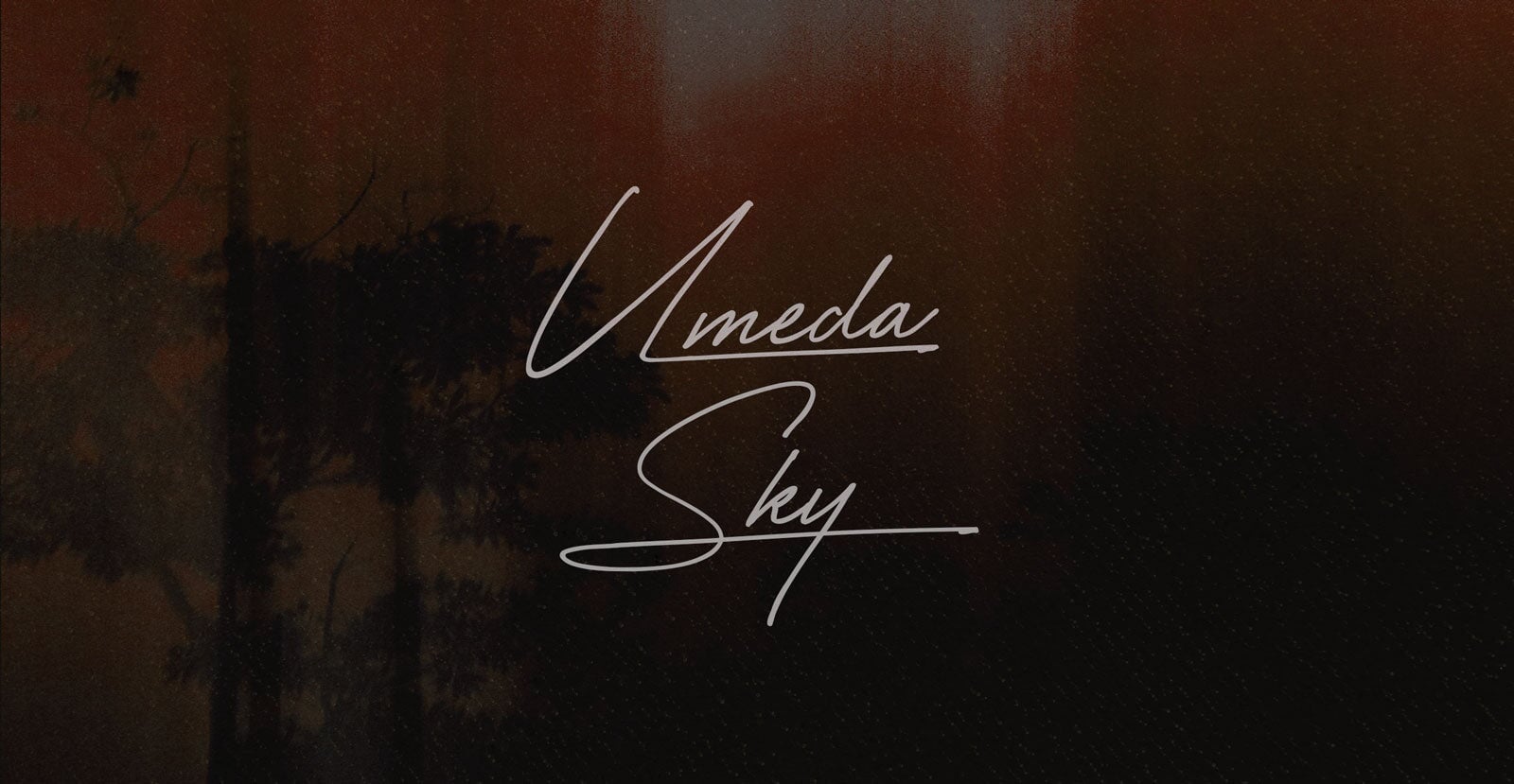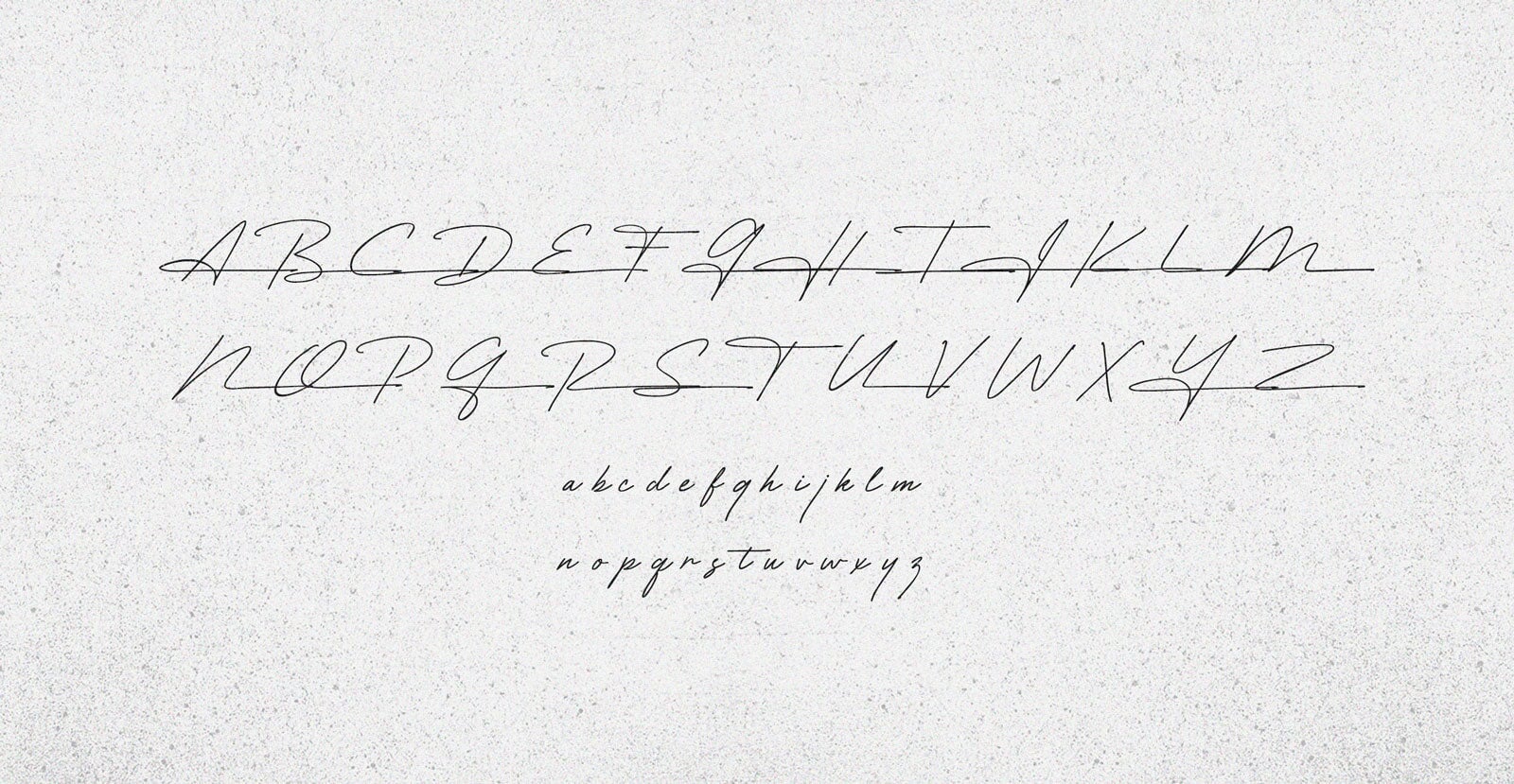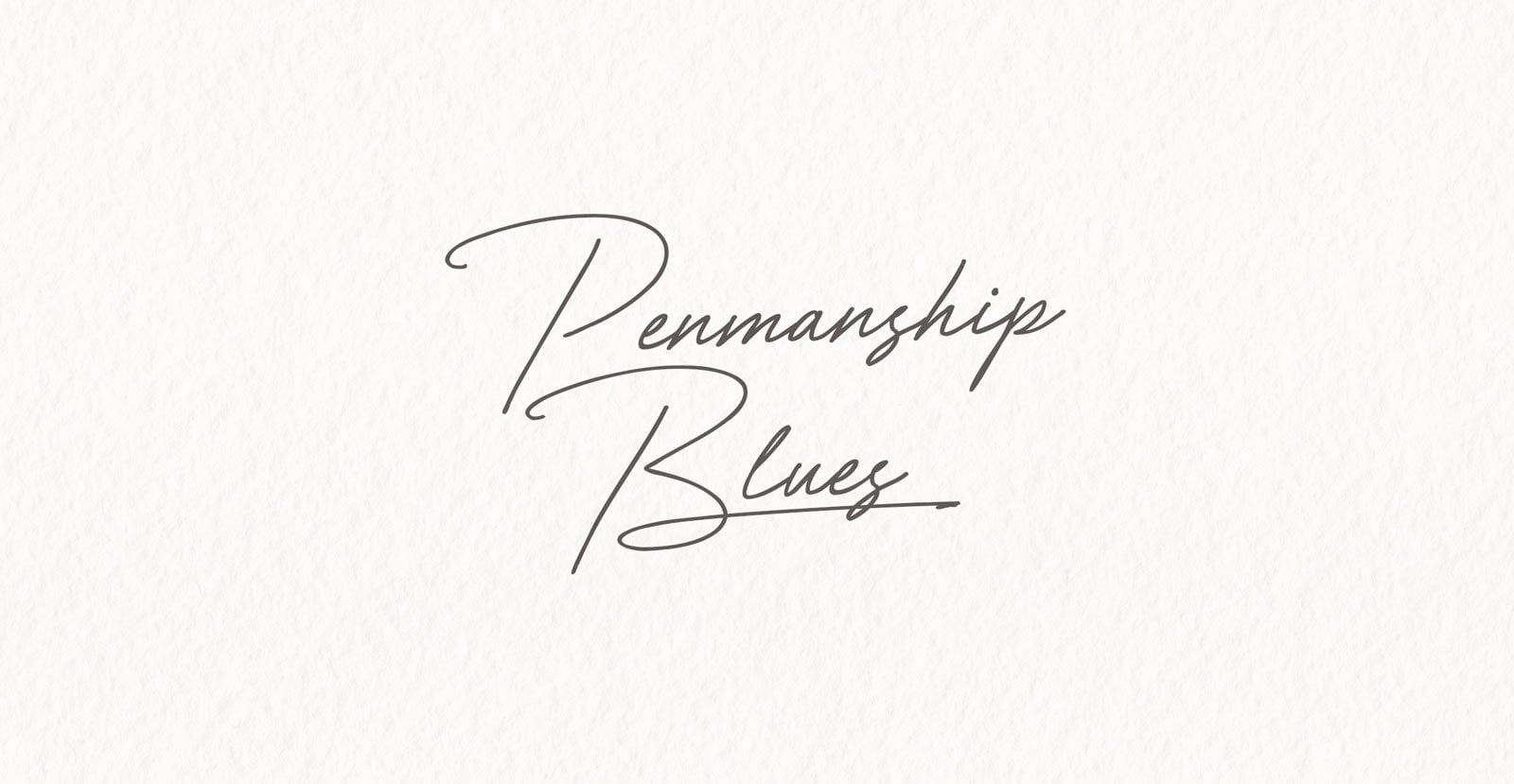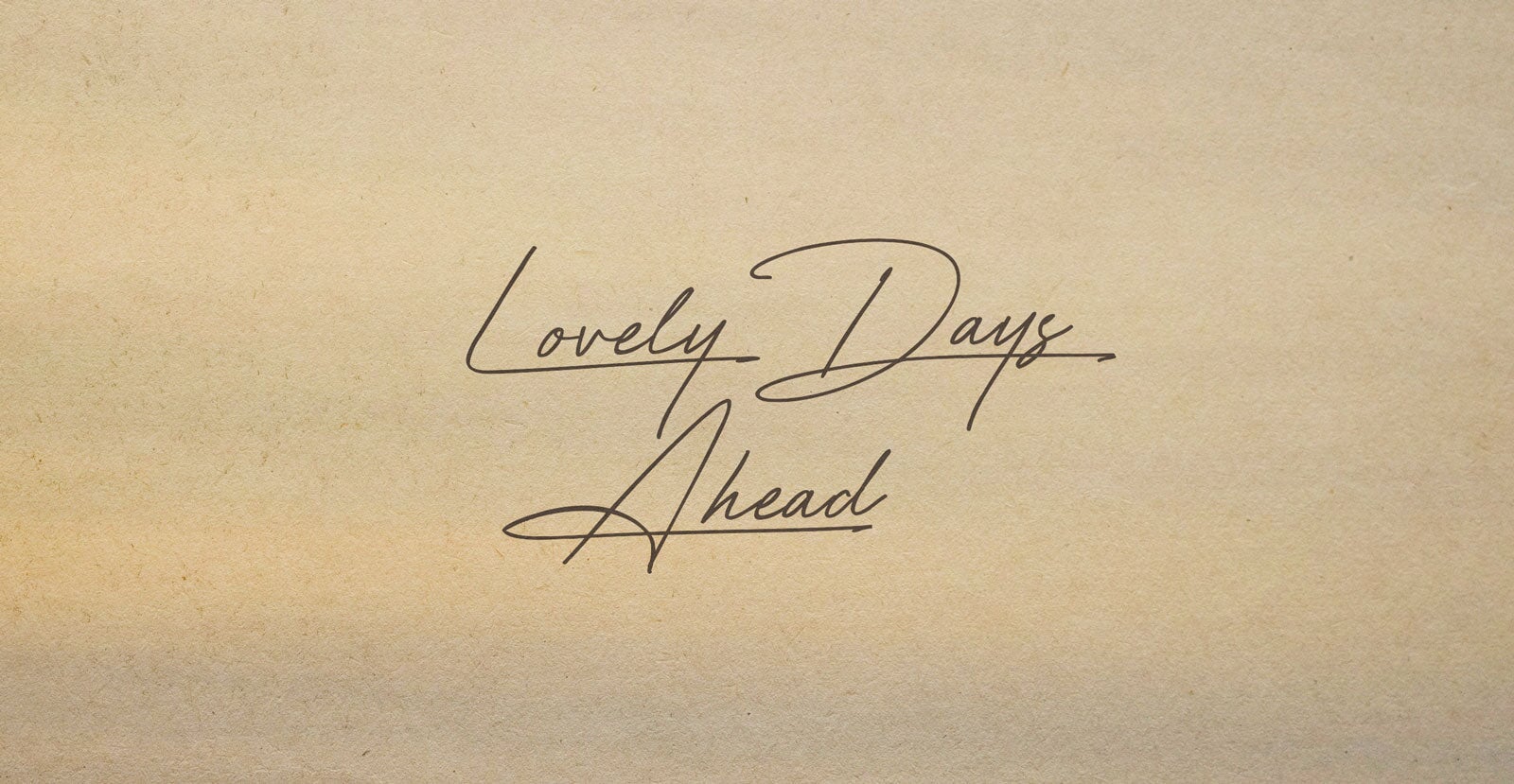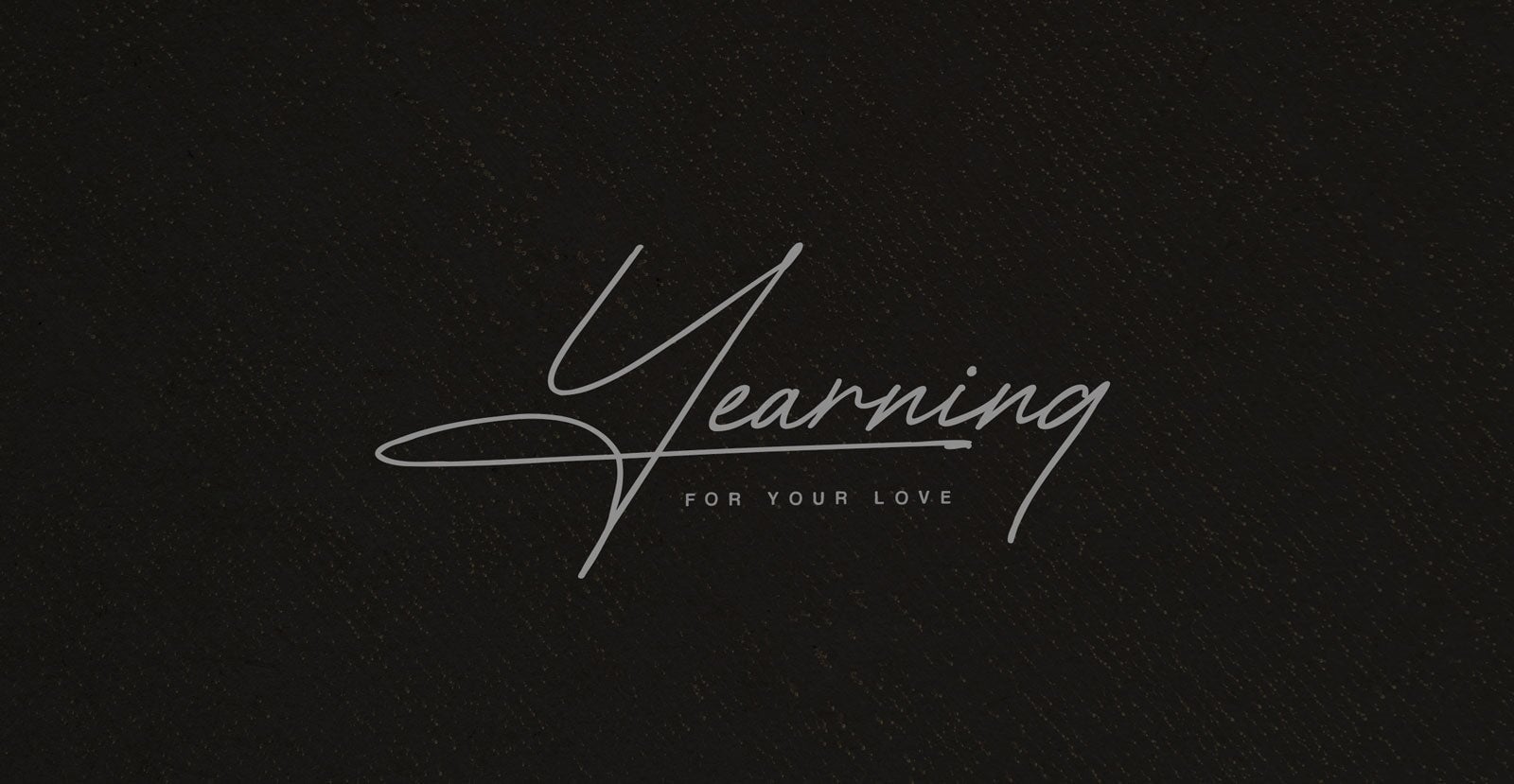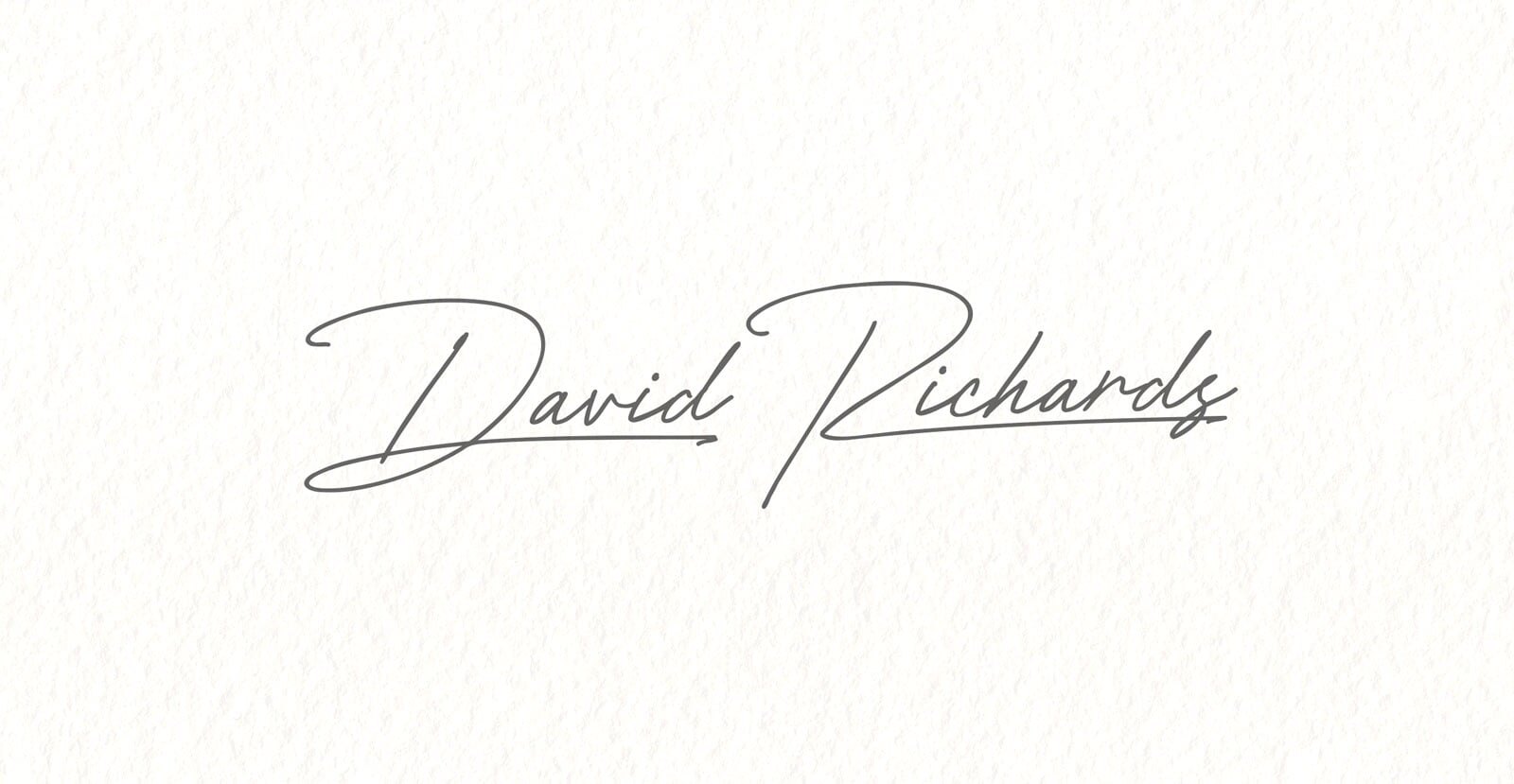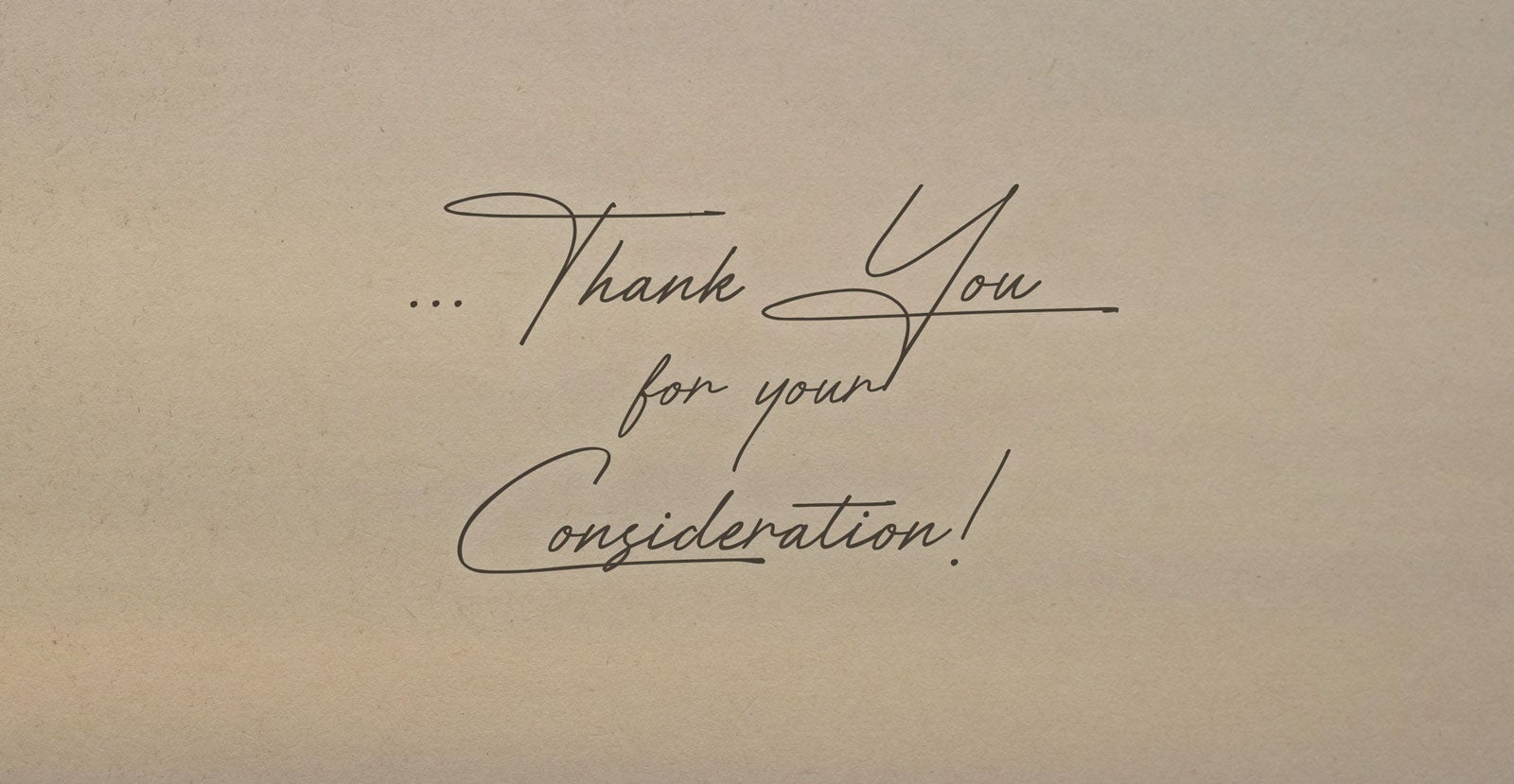
Umeda Sky
Handwritten Pen Script Font
Umeda Sky floats above the noise, sleek, reflective, and quietly futuristic. It balances precision with atmosphere, like steel and glass suspended in motion. A view from above, where everything feels just a little more possible.